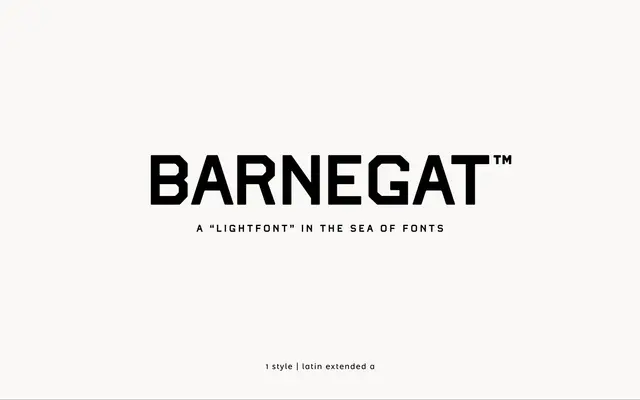
Barnegat
A single-style decorative display face for posters, packaging and editorial titles.
A display face by atipo foundry drawn as a single decorative cut. The page lists one style alongside numeric features, including pre-designed fractions, numerators, denominators, superscript, scientific inferiors and ordinals. It is intended for posters, packaging and editorial titles rather than long-form running text. Language coverage takes in the main European Latin scripts.
A single-style decorative display face with a strong illustrative voice, drawn for posters, packaging and editorial titles rather than continuous text.